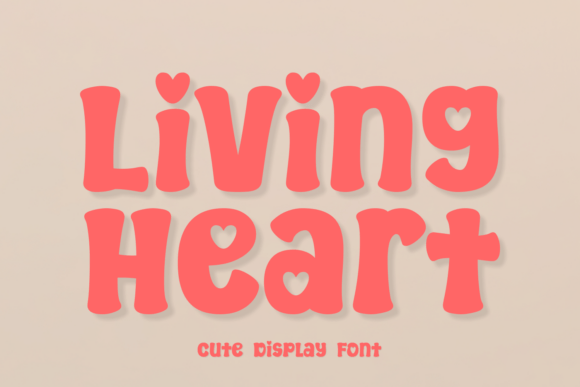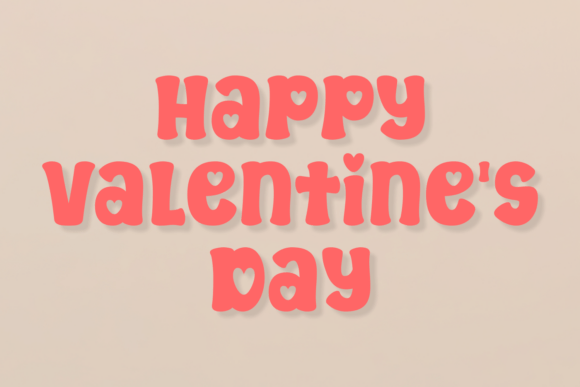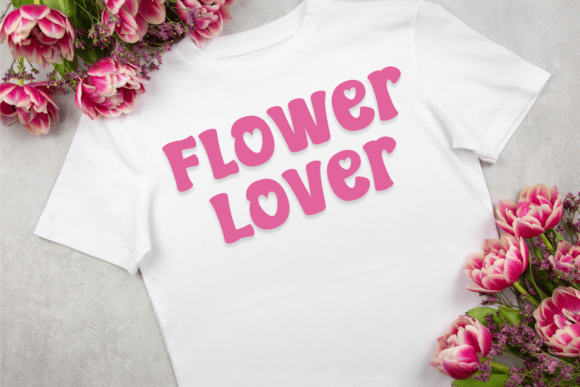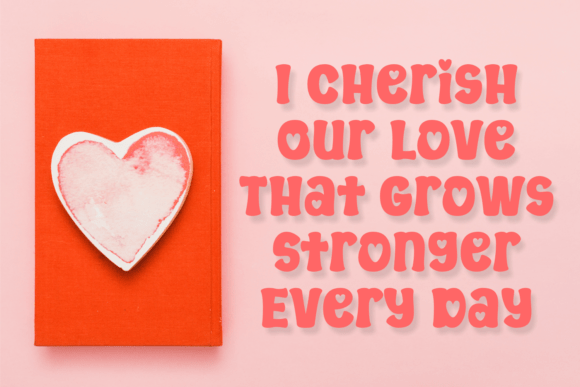
Living Heart Font: A Cute & Playful Display Font for Cricut
About the Living Heart Font
From logos to headlines, the Living Heart Font is the perfect choice for making a lasting impression. Introducing Living Heart, a playful yet authentic design element ideal for an array of creative undertakings. Serving as a perfect companion for brand designs, it boasts a remarkable versatility fitting for t-shirt prints, product packaging, and poster artwork. Let it voice your warmest greetings in cards or mark an indelible impression on event invitations. From labels to logos, Living Heart is sure to make your creations stand out with its bold and clean styling.
Living Heart’s bold, friendly personality makes it ideal for headlines, short text blocks on packaging, and eye-catching logos. It excels in applications requiring immediate visual impact, such as posters and social media graphics. However, its playful forms are less suitable for lengthy body text or UI elements where readability is paramount.
Consider pairing Living Heart with a clean sans-serif like Open Sans for a balanced contrast, or a more refined serif like Merriweather for a touch of elegance. For a playful yet sophisticated look, a simple script font like Great Vibes could be effective, depending on the overall brand aesthetic.
The font’s energetic style is well-suited for brands targeting a younger demographic or those with a vibrant, approachable identity. Think lifestyle brands, craft businesses, or playful children’s products.
Living Heart Font Usage Examples
Living Heart Font Example